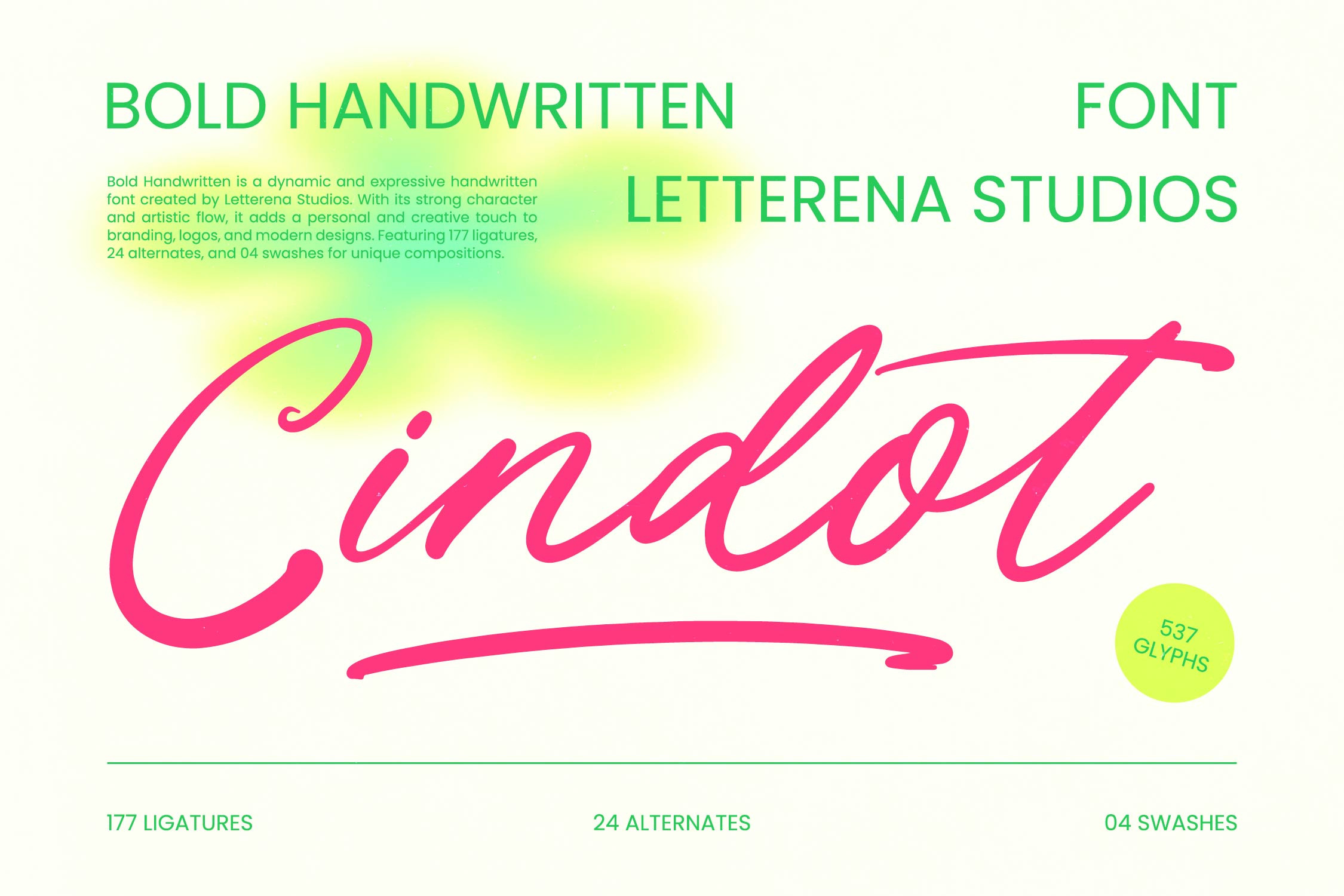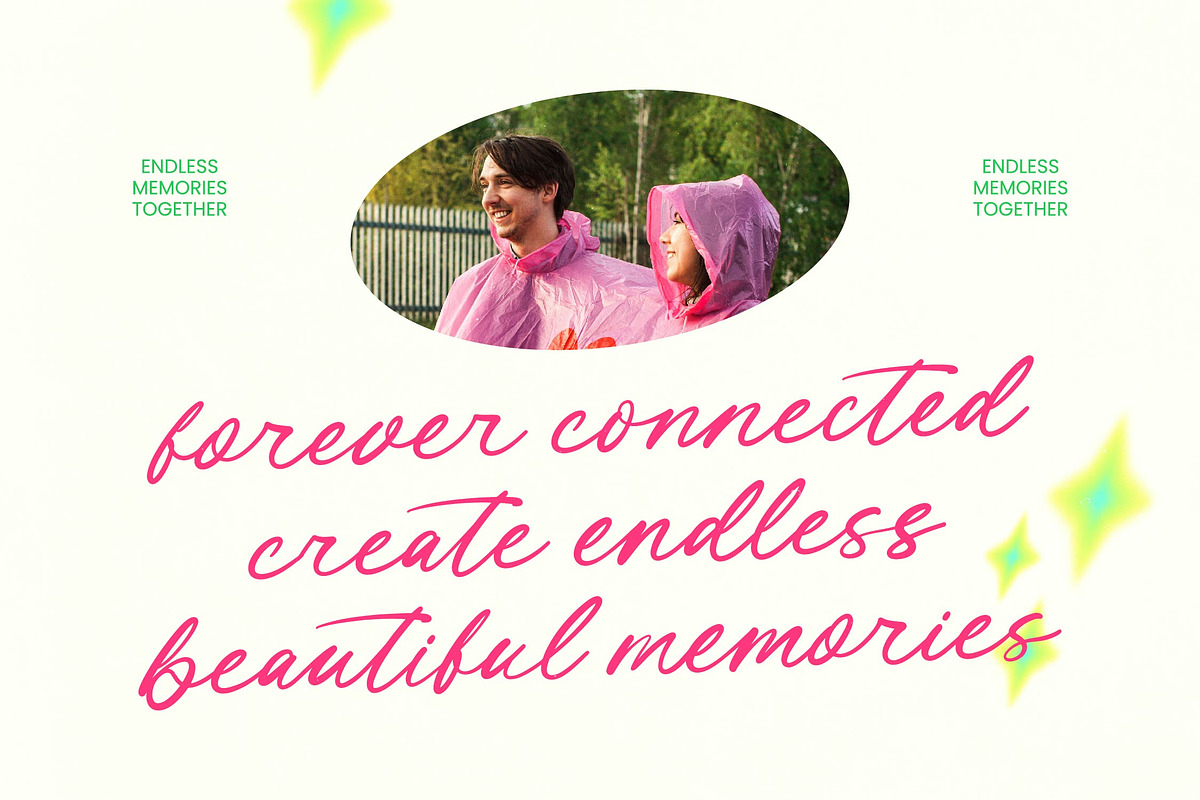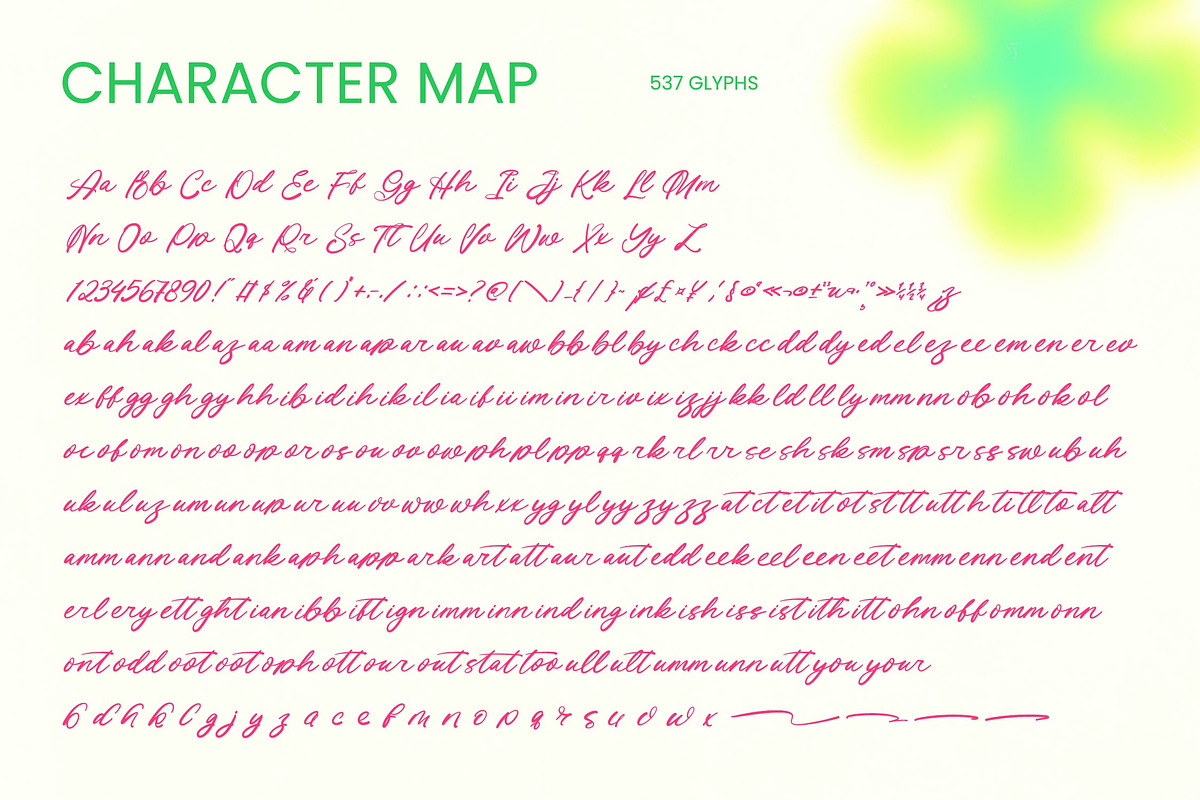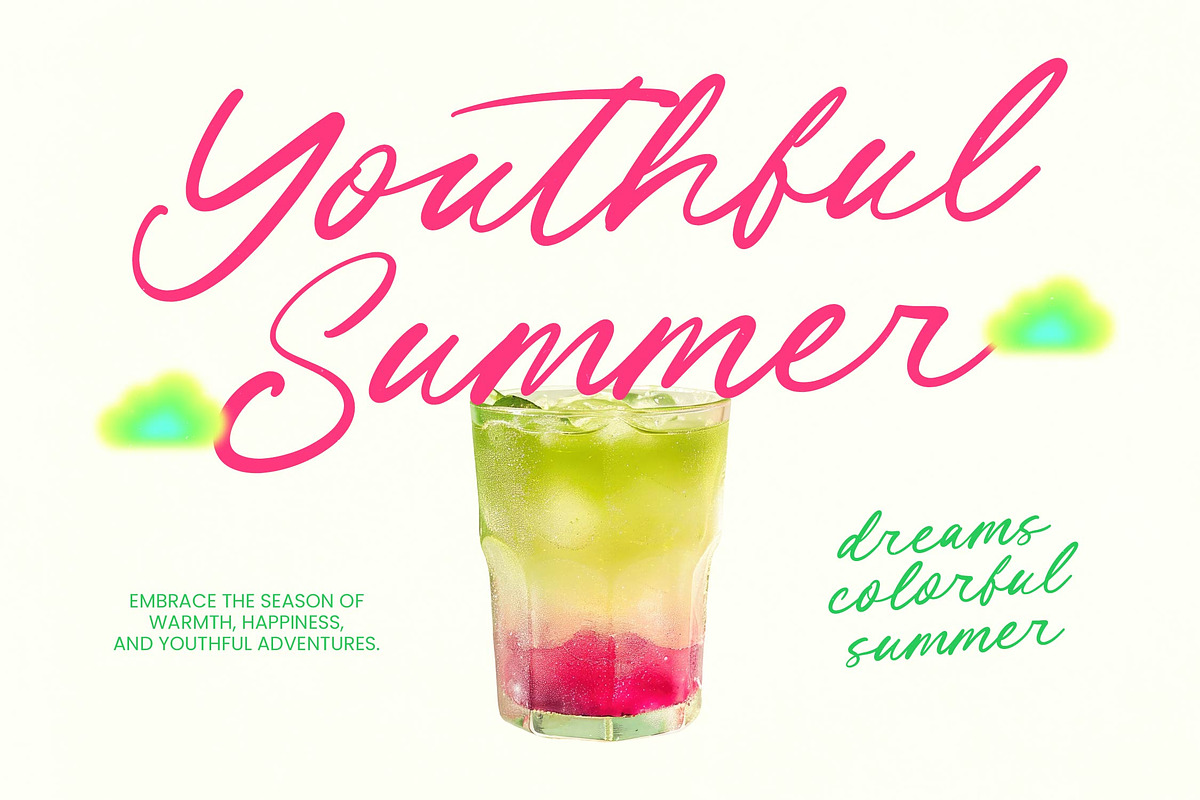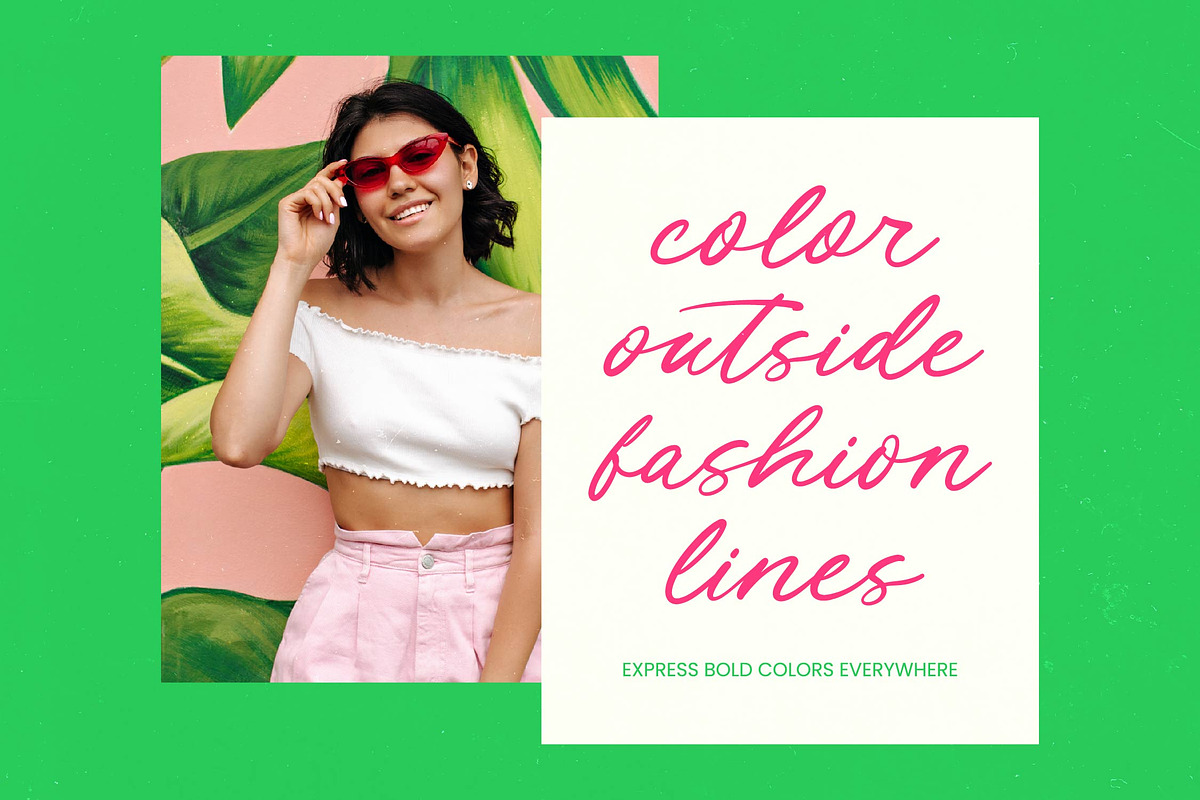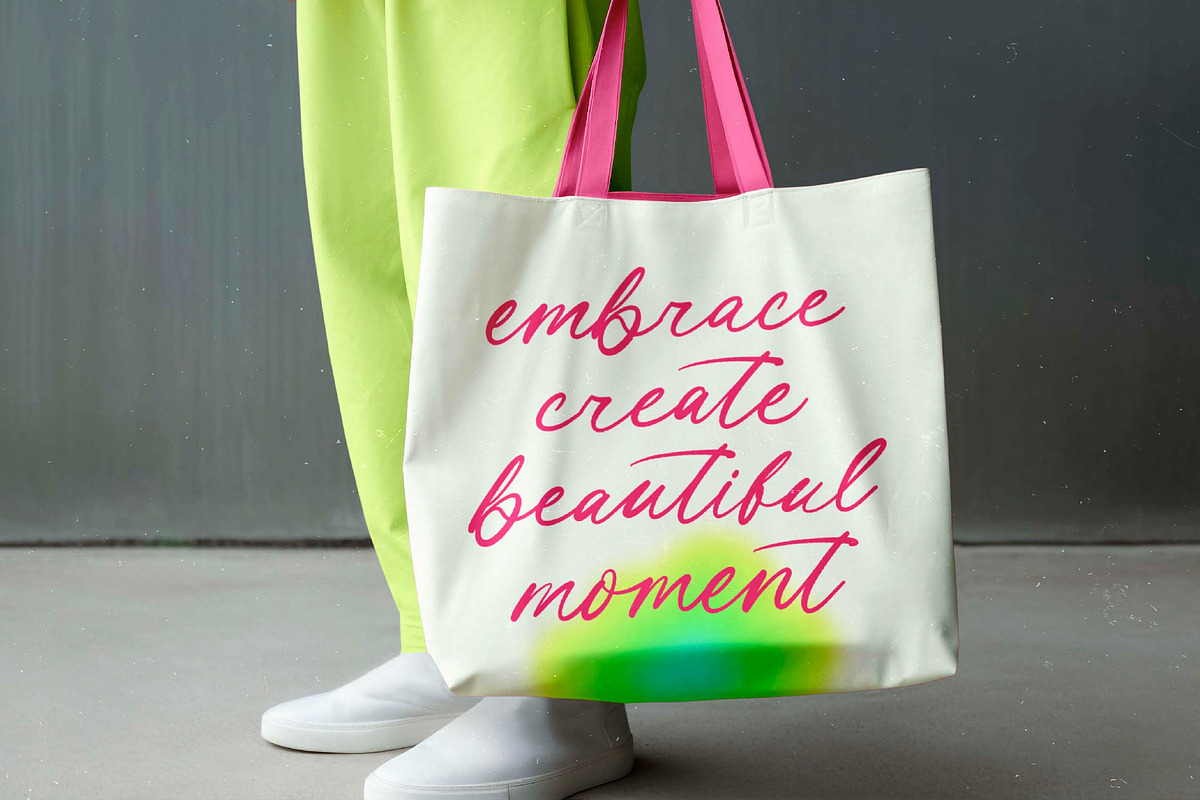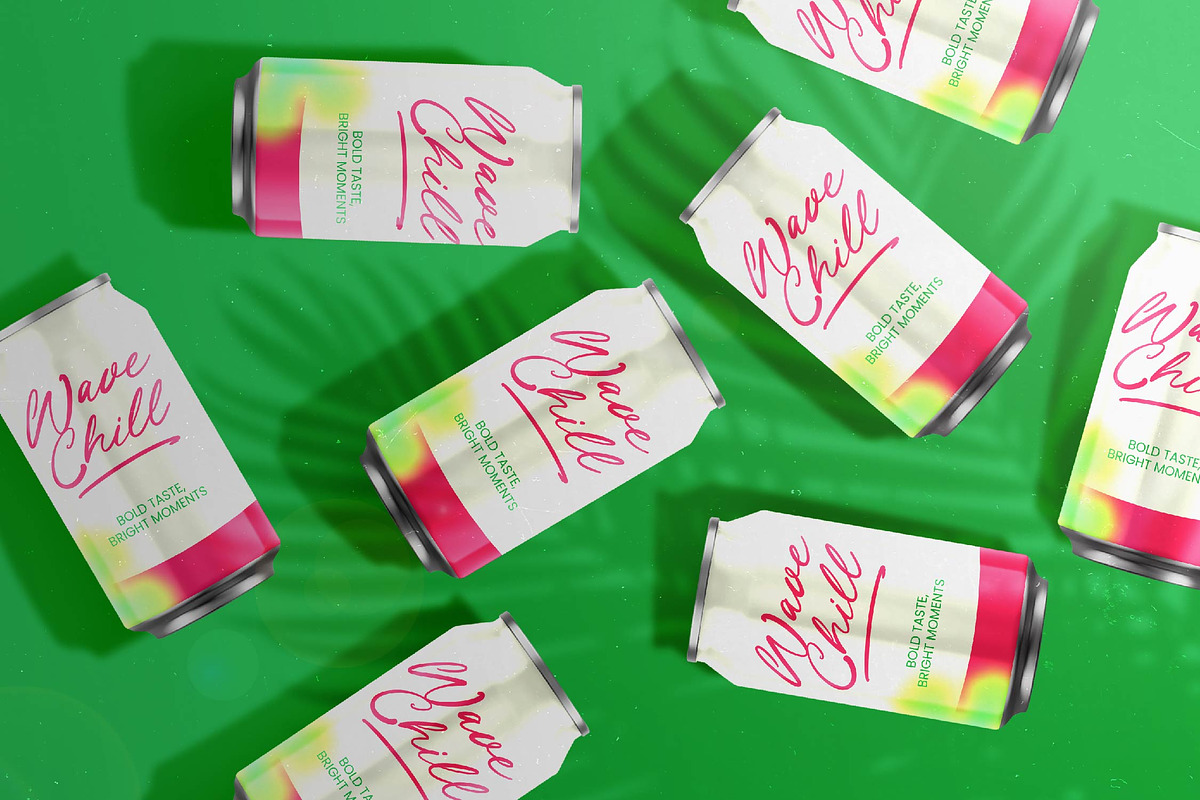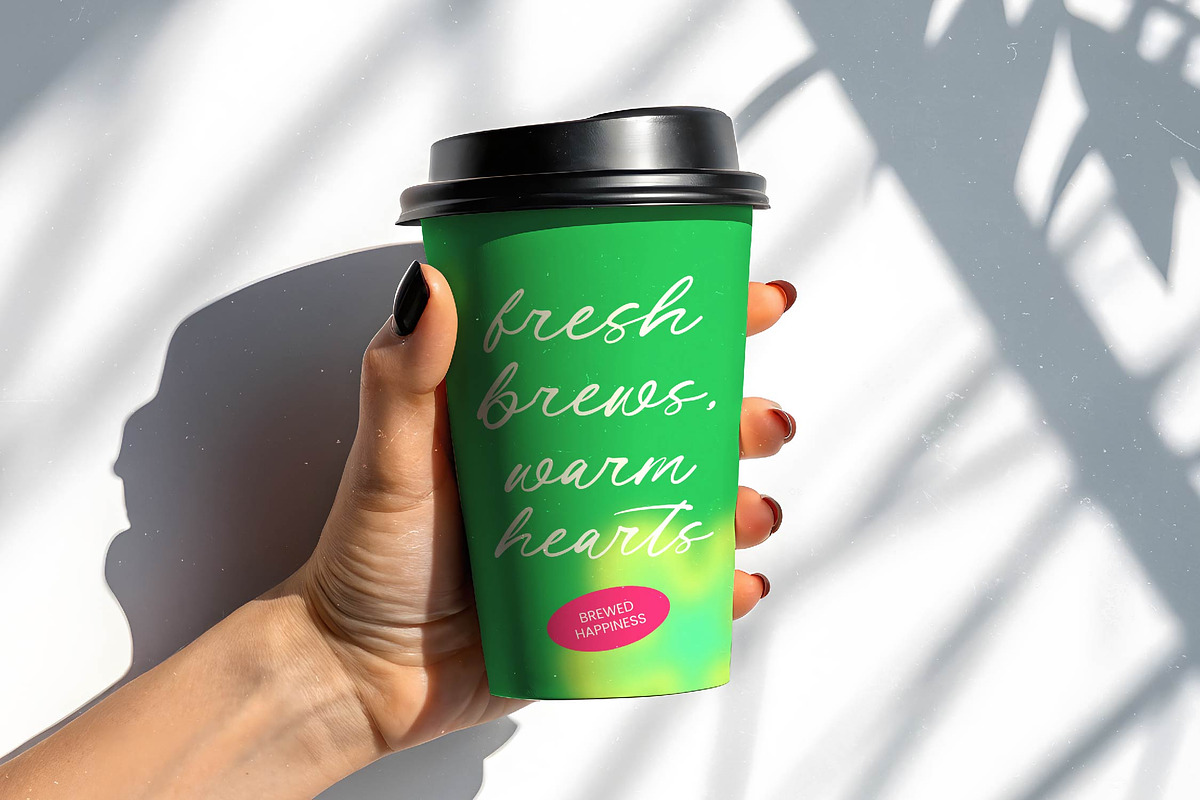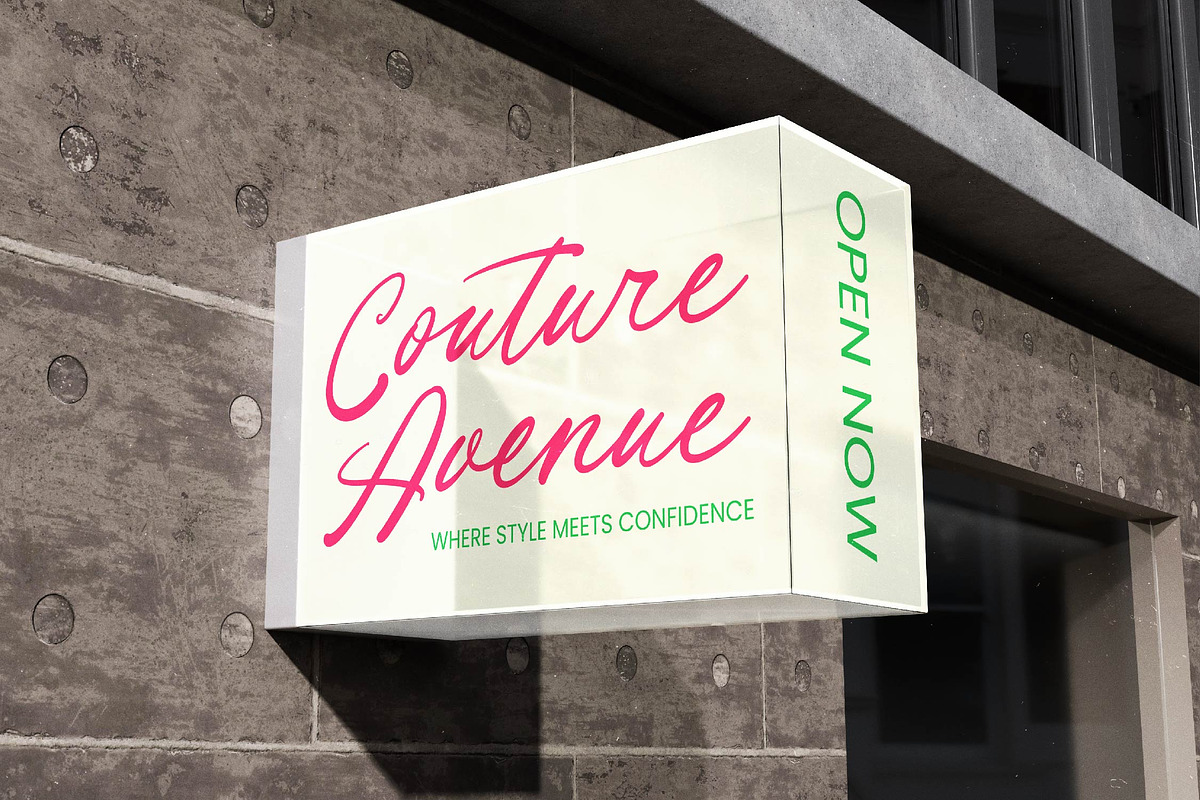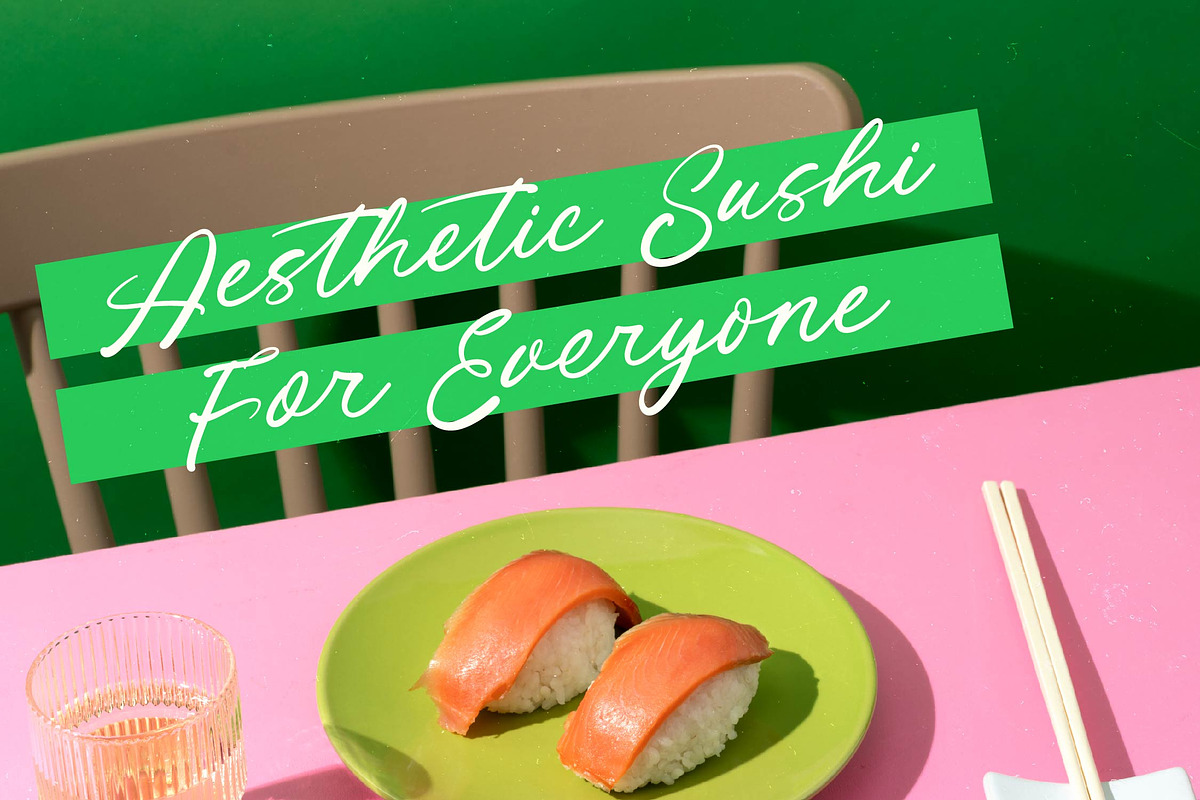
Cindot Bold Handwritten Font
Cindot - Bold Handwritten Font
Elevate your creative vision with a typeface that embodies raw energy and sophisticated flair. Cindot - Bold Handwritten Font is a dynamic script designed to command attention while maintaining a personal, artisan touch. Crafted by Letterena Studios, this bold handwritten font features a fluid, organic stroke that brings an authentic and human-centric feel to digital and print media. Its expressive nature and high-impact silhouettes ensure that every word resonates with confidence and artistic integrity.
Precision meets spontaneity in a robust package designed for professional versatility. Beyond its striking appearance, Cindot - Bold Handwritten Font is technically superior, boasting a massive library of 537 glyphs. With 177 ligatures, 24 alternates, and creative swashes, designers can achieve a truly customized look for any project. With its extensive multilingual support, Cindot - Bold Handwritten Font adapts seamlessly across global markets, making it incredibly versatile for international projects and ensuring your message is heard globally.
Transform ordinary layouts into extraordinary experiences across a diverse range of design sectors. This typeface is the ideal choice for luxury branding, premium packaging, and high-end editorial design. Cindot - Bold Handwritten Font is perfect for logo design, social media graphics, and advertising campaigns where a strong, memorable identity is required. Its bold weight ensures excellent readability in headline typography, making it a go-to resource for merchandise design and lifestyle brand identities.
Invest in a professional asset that bridges the gap between contemporary trend and timeless style. Choosing Cindot - Bold Handwritten Font means opting for a premium design solution that enhances brand recognition and engagement. Its unique blend of calligraphic elegance and modern power makes it a versatile tool for any professional's kit. Whether you are crafting a boutique identity or a global marketing campaign, Cindot - Bold Handwritten Font provides the visual depth and expressive character needed to stand out in a competitive marketplace.